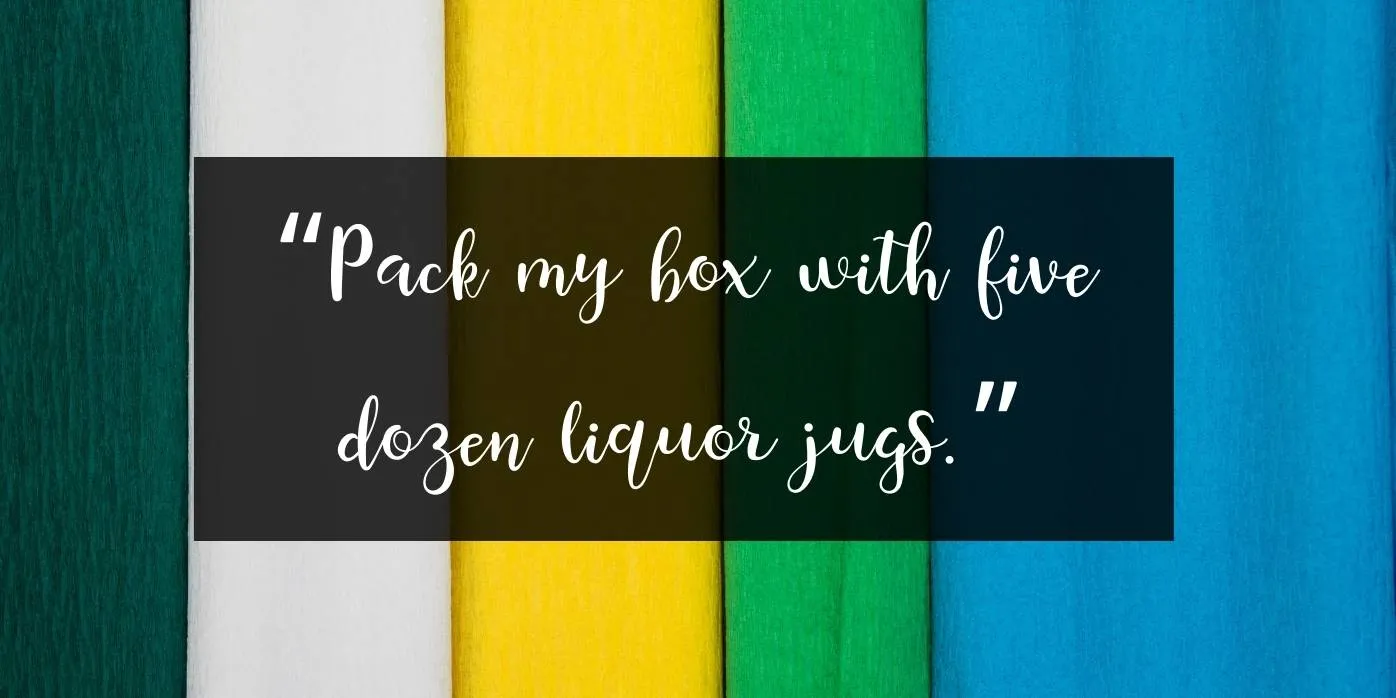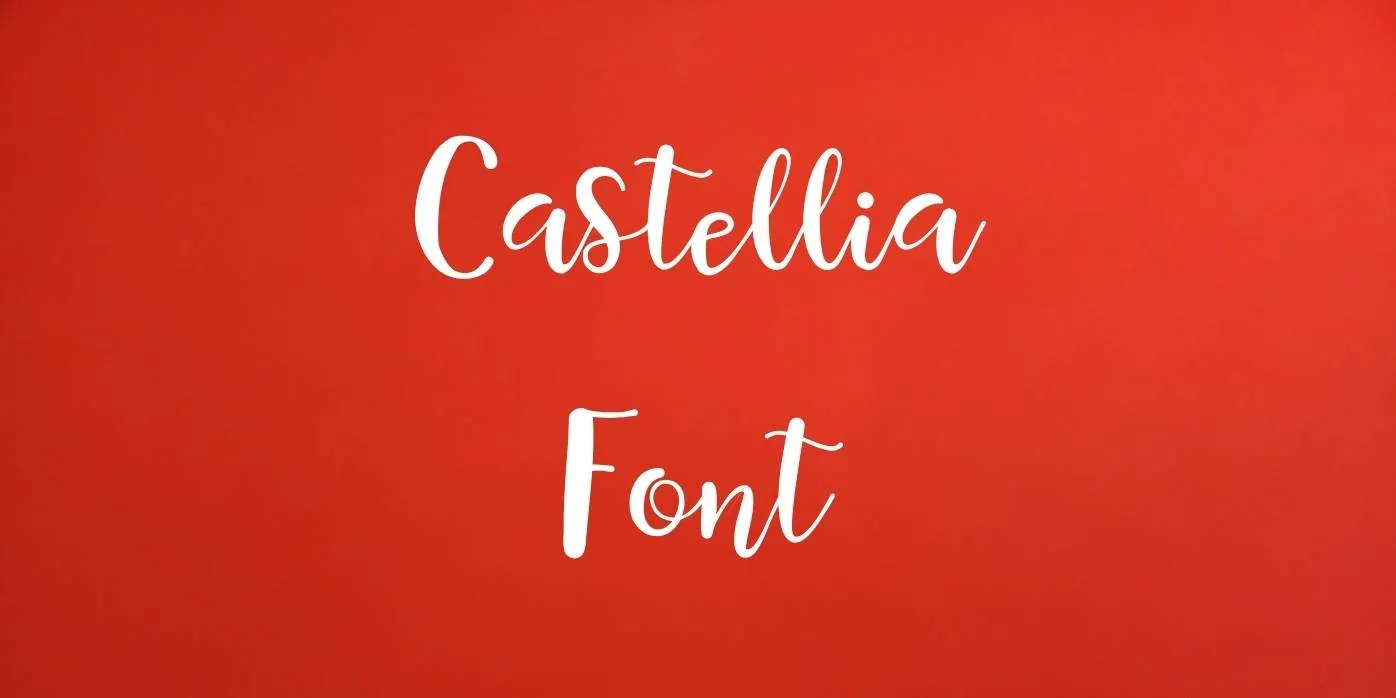
Castellia Font
Here, we are going to discuss the stylish and elegant typeface that is known as Castellia Font. It belongs to the Script typeface and was designed by Joel Maker Studio. Joel Maker is a multitalented artist who has created various other typefaces and graphics. This Font comes with a very classic yet stylish look.
It is perfect for creating elegant designs and can be used for both personal and commercial purposes. The font supports Latin, Cyrillic, and Greek languages. Its Bold style makes it popular. This typeface includes more than 200 unique Glyphs and characters like ligatures, contextual alternates, and discretionary ligatures.